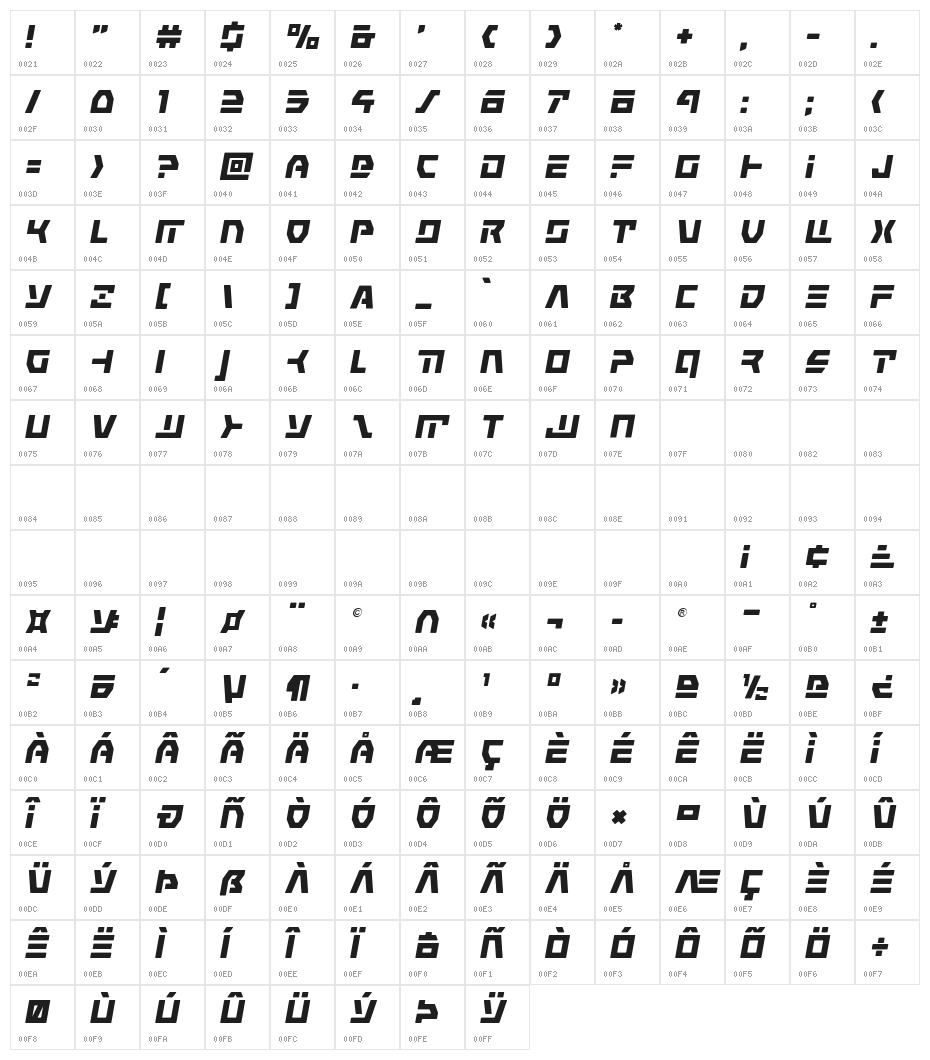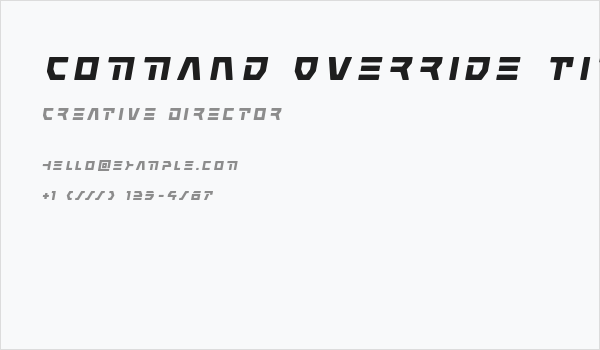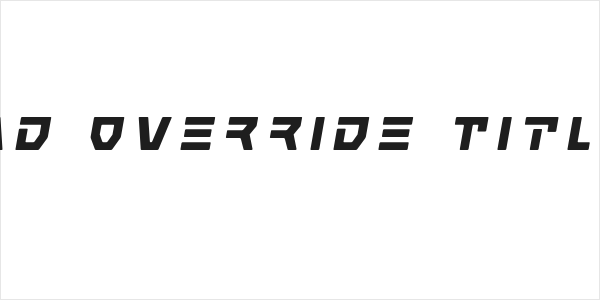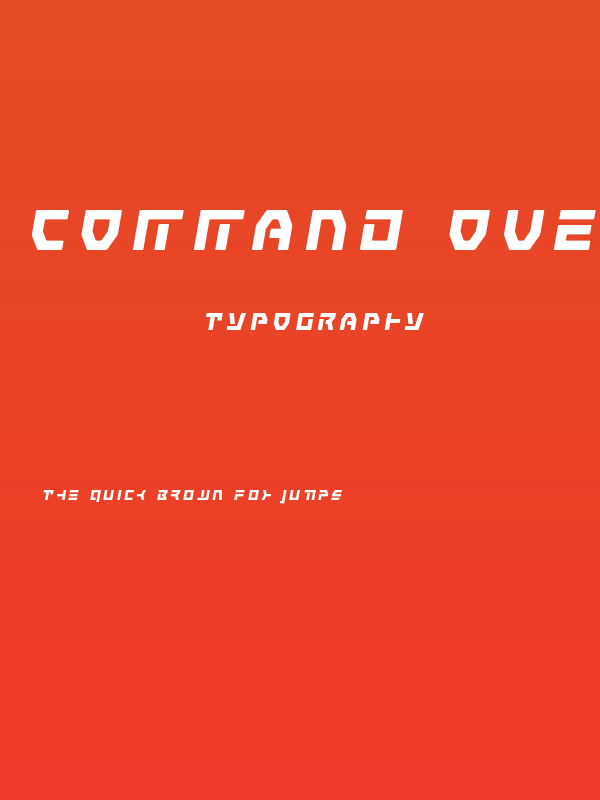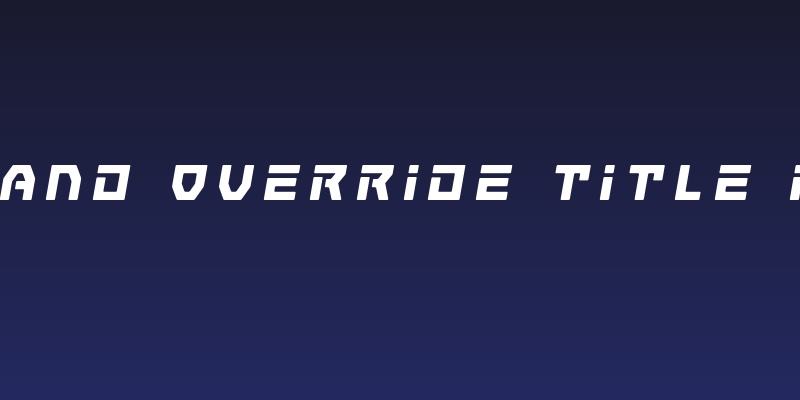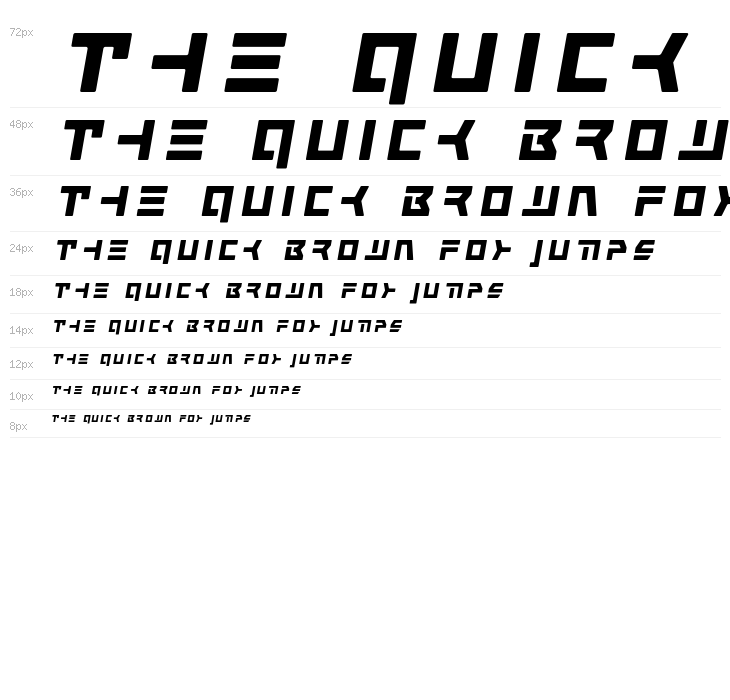
Command Override Title Italic Font
Command Override Title Italic Description
This font features a bold, angular design with a futuristic and dynamic appearance. The characters are sharply cut with a distinct slant, giving them a sense of motion and urgency. The uppercase and lowercase letters maintain a consistent style, with the lowercase being slightly smaller but equally bold. Numbers and special characters follow the same angular and slanted design, ensuring uniformity across all glyphs. The font's geometric shapes and sharp edges make it ideal for projects that require a modern and edgy look.
| Proposed Projects | Ideal for sci-fi themed posters, video game titles, tech branding, and futuristic designs. |